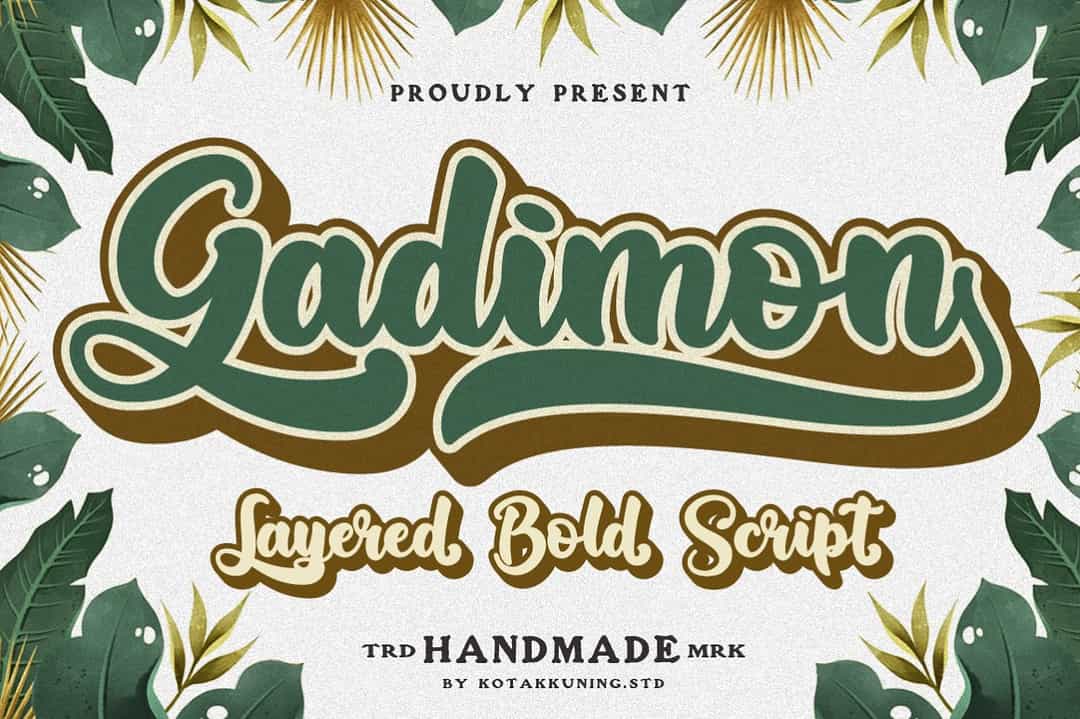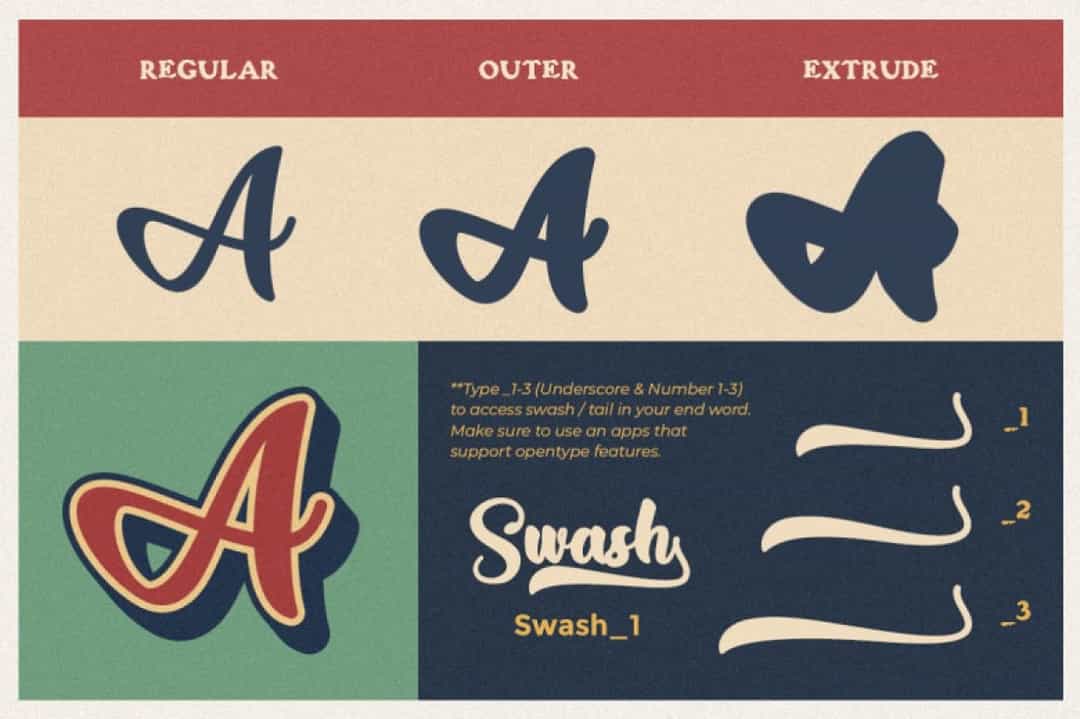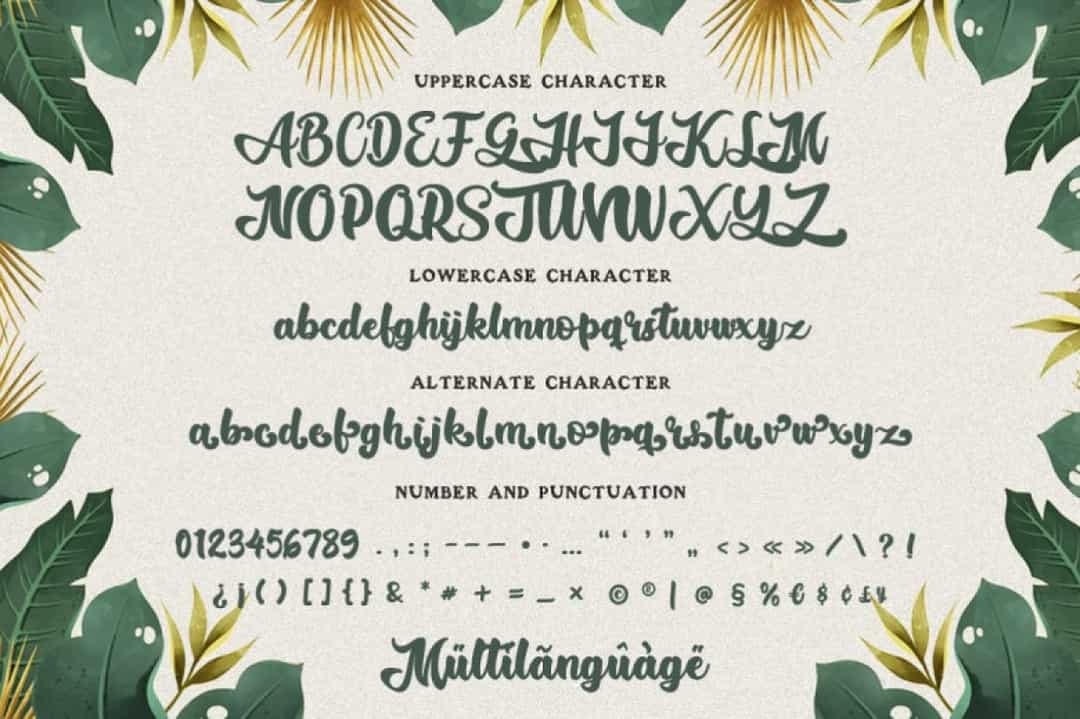
Discover Gadimon Script Font, part of the Brush Script Old School Various collection—a versatile and unique font perfect for adding a personal touch to your projects. Download it for free and enjoy crafting designs with style, from invitations to social media posts. This font is available exclusively for personal use, giving you the freedom to create without limits. Unlock your creativity with Gadimon Script Font today!
Meet the new application of the Gadimon font – Layered Bold Script. This font is used with layers method, so it can generate interesting fonts to see, you no longer need to worry about how to make effect on the text.